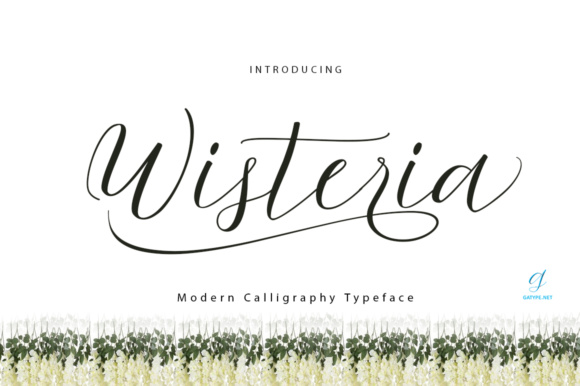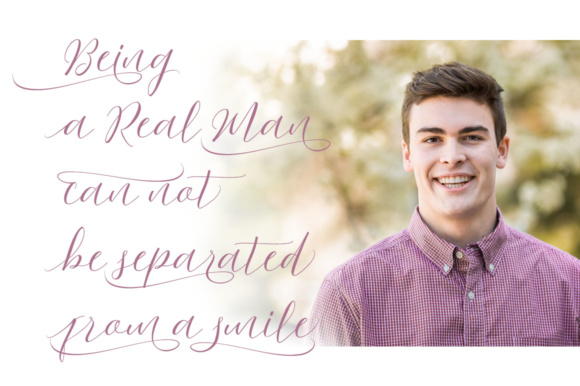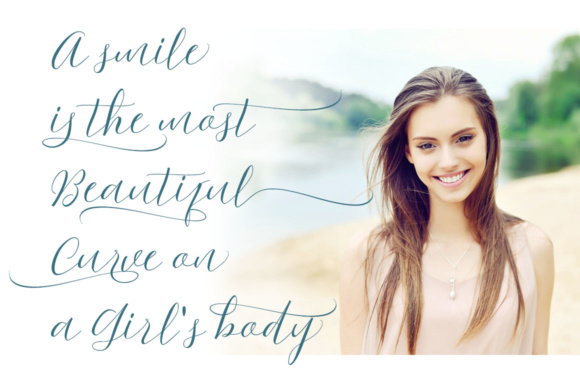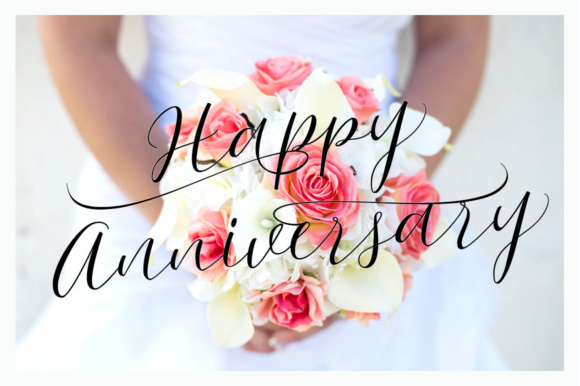
Wisteria Script Font
About Wisteria Script Font
The Wisteria is a modern script font. Every letter has been carefully crafted to make your text look beautiful. With it’s modern script style, the Wisteria is perfect for many different projects.